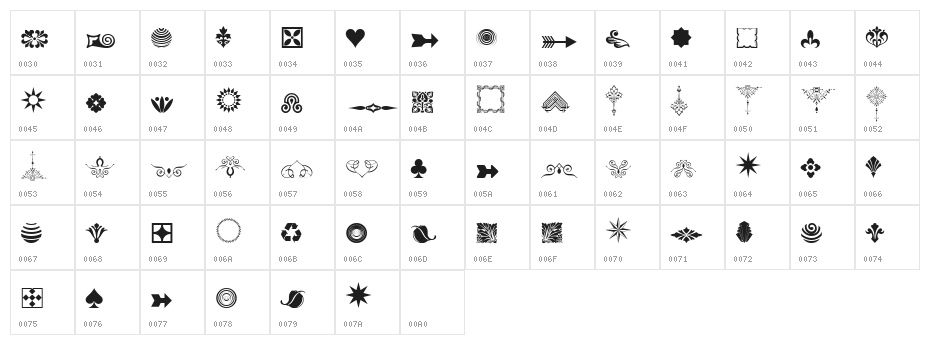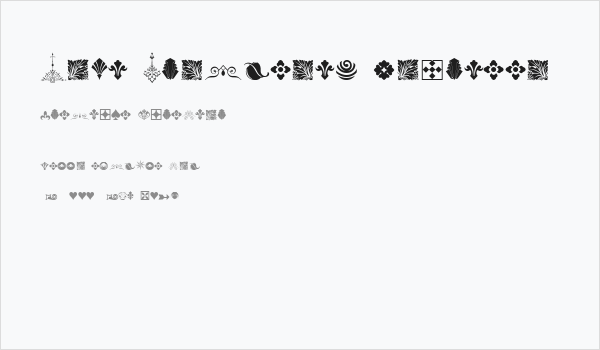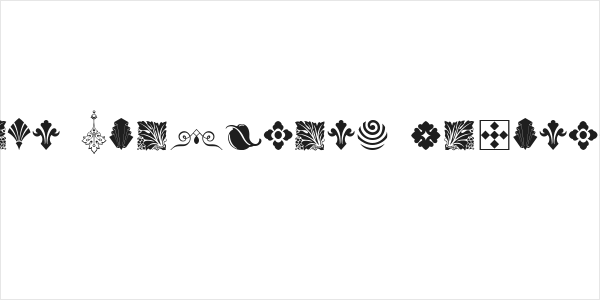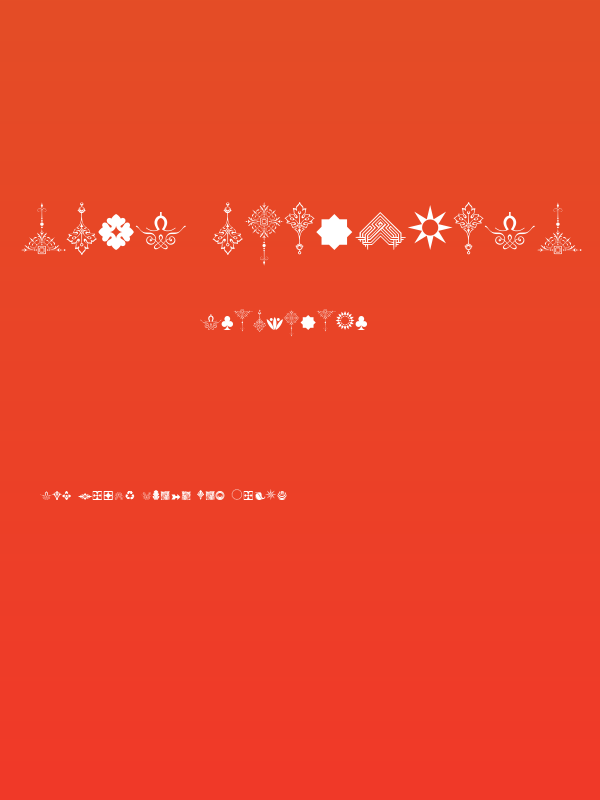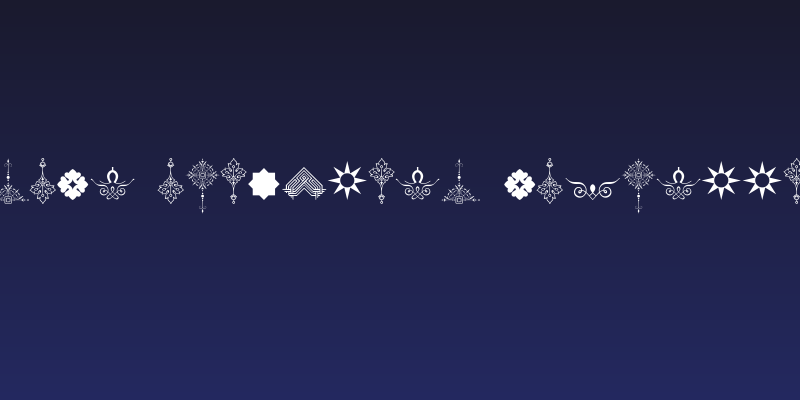
Soft Ornaments Fourteen Font
Soft Ornaments Fourteen Description
A decorative dingbat and ornament set featuring a wide variety of intricate shapes, including floral motifs, geometric patterns, swirls, arrows, hearts, and playing card symbols. The designs range from delicate line work to bold, filled silhouettes, offering both vintage and modern aesthetics.
| Overall Style | Decorative, Ornamental, Eclectic |
| Use Case | Borders, Dividers, Decorative elements, Accents |
| Proposed Projects | Invitations, certificates, borders, dividers, scrapbooking, branding, packaging, decorative accents. |